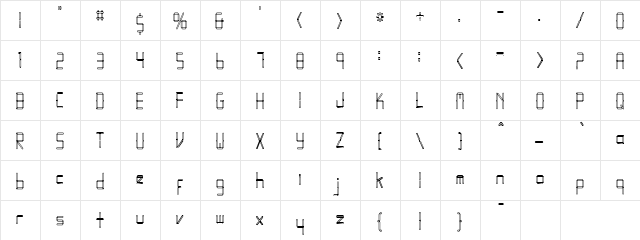
LED Font HC Normal
Design Context for LED Font HC Typeface
LED Font HC is a composed and adaptable typeface that performs quietly and consistently across a wide range of design contexts.